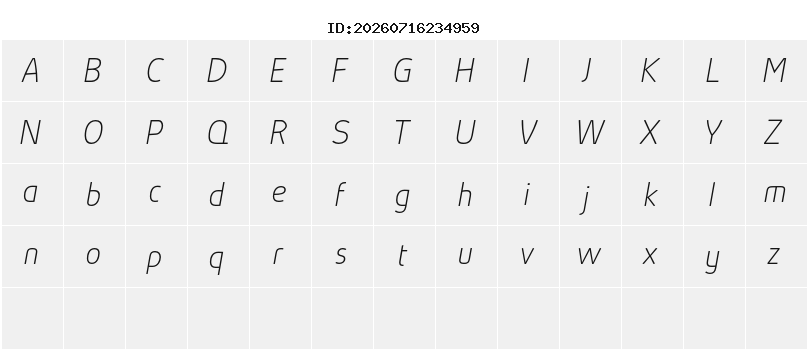
• Font Name: Absolut Pro reduced
• Font ID: IngoZimmermann: Absolut Pro Thin Italic: 2009
• Full Font Name: AbsolutPro-ThinIt
• Version: Version 1.002
• PostScript Name: AbsolutPro-ThinIt
• Character Count: 53
• Designer: Ingo Zimmermann
• Manufacturer: Ingo Zimmermann
About Absolut Pro reduced.otf
Absolut Pro reduced.otf is a modern, elegant sans-serif font designed for ultimate readability and visual harmony. Perfect for branding, headlines, web design, and print materials.